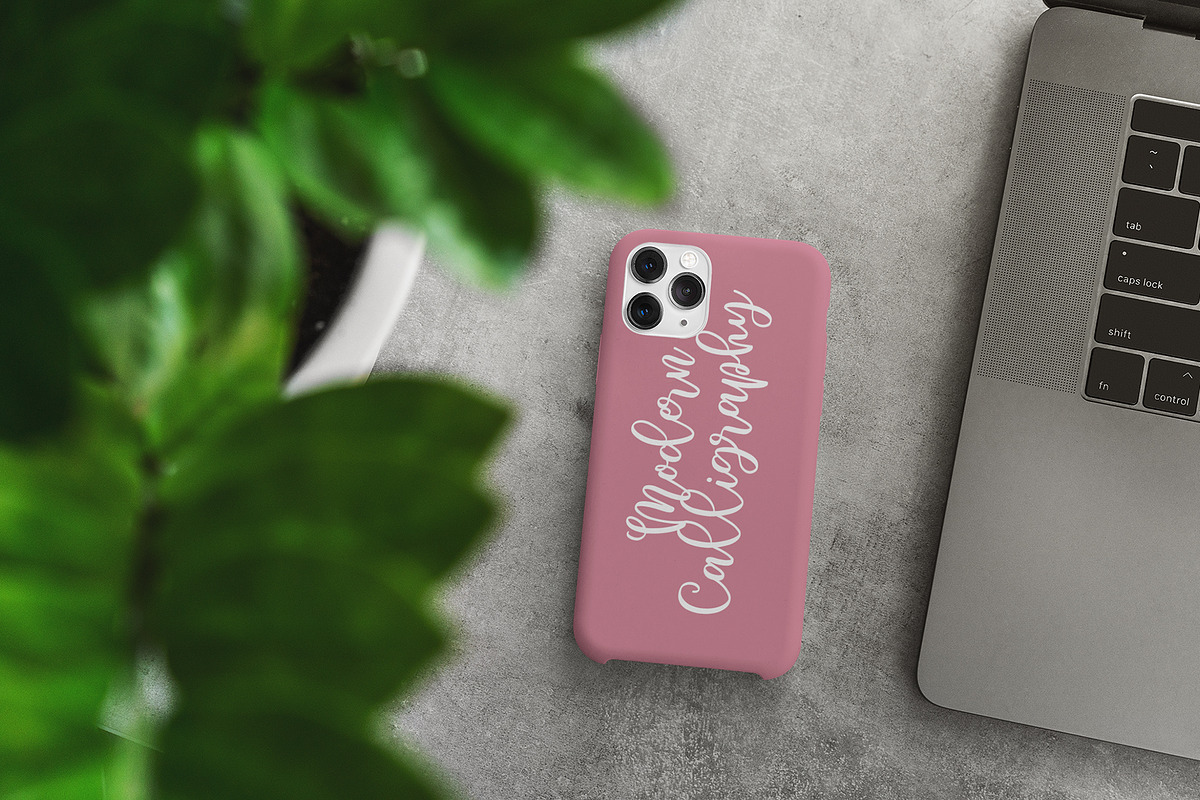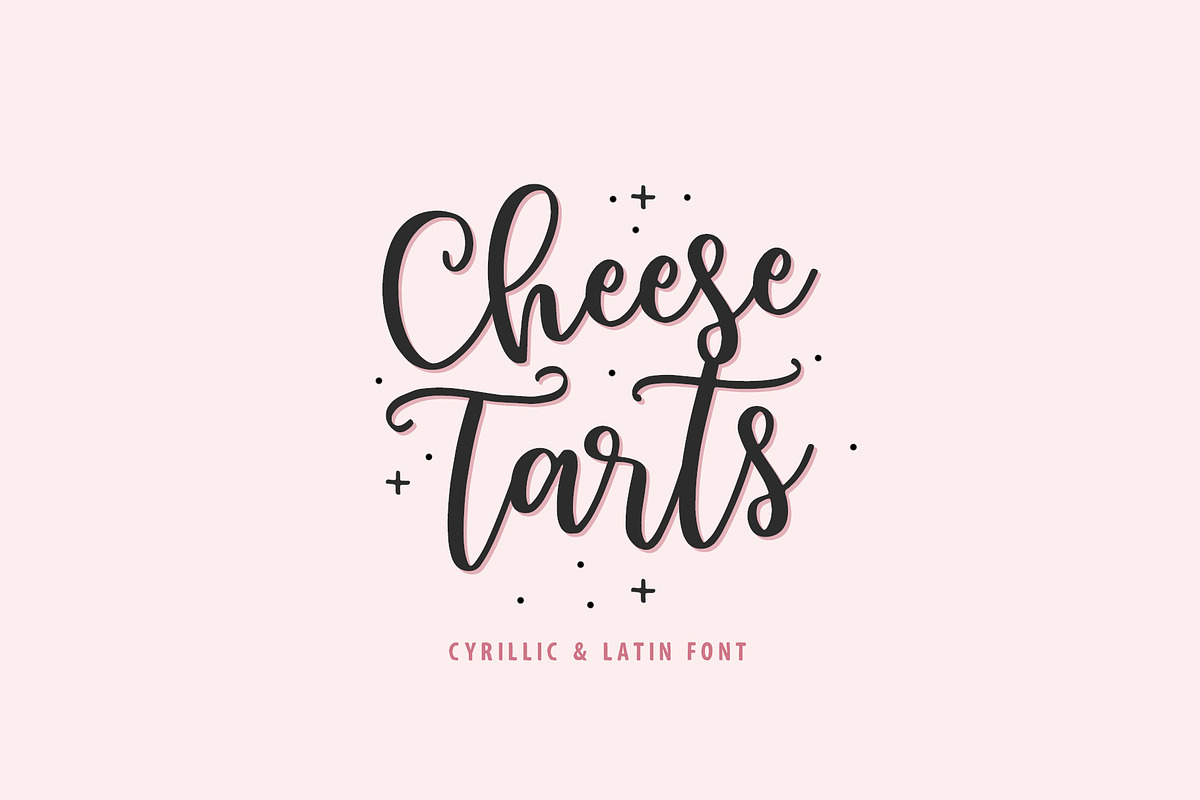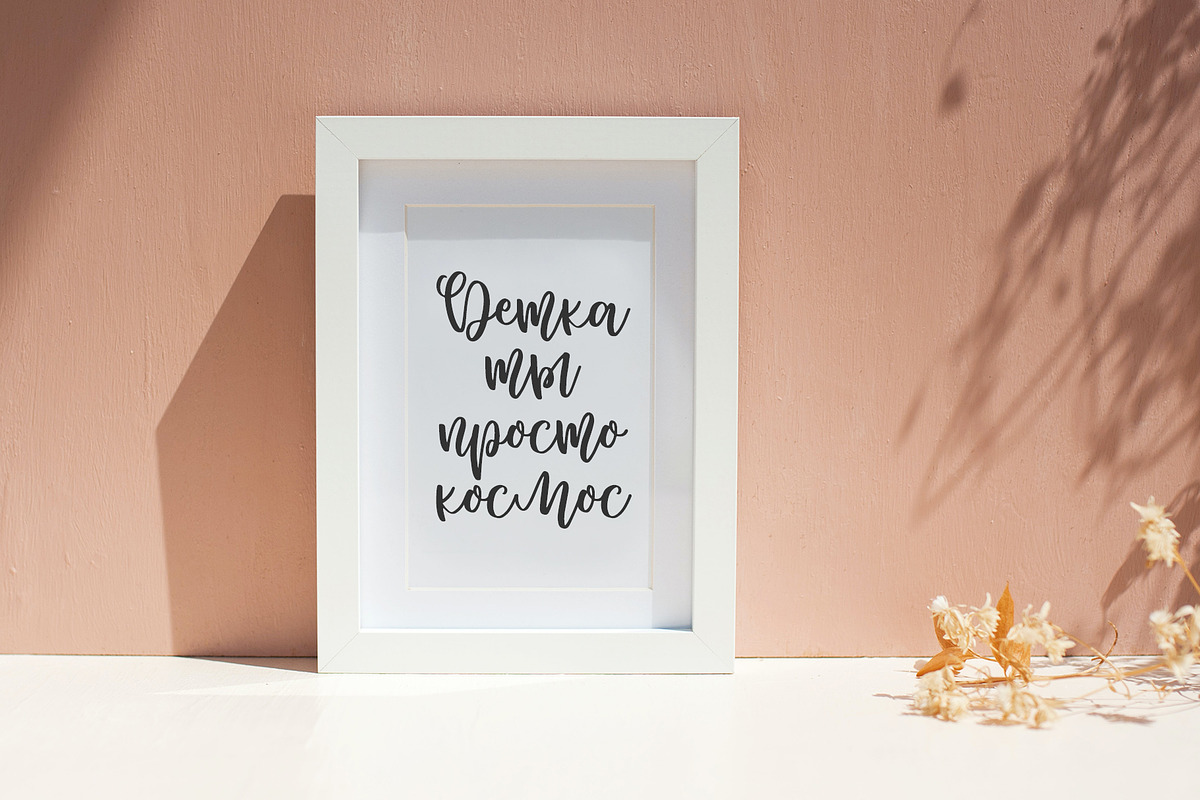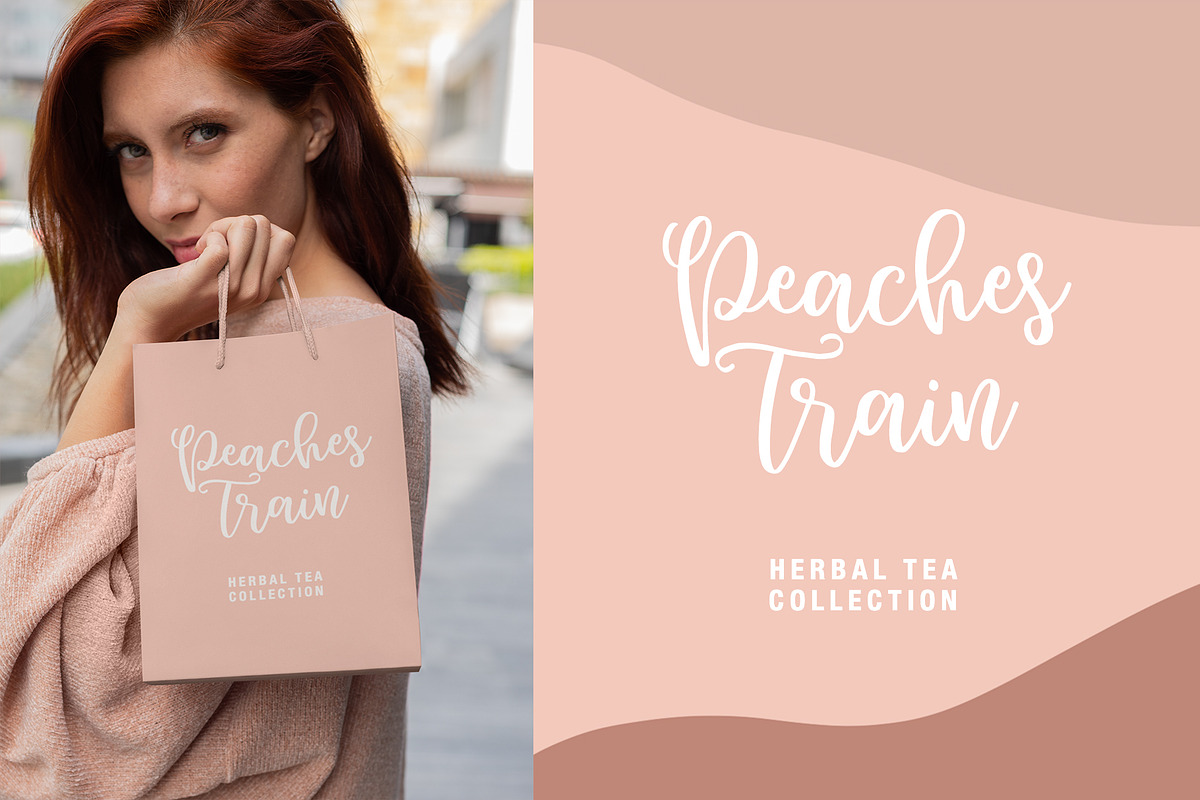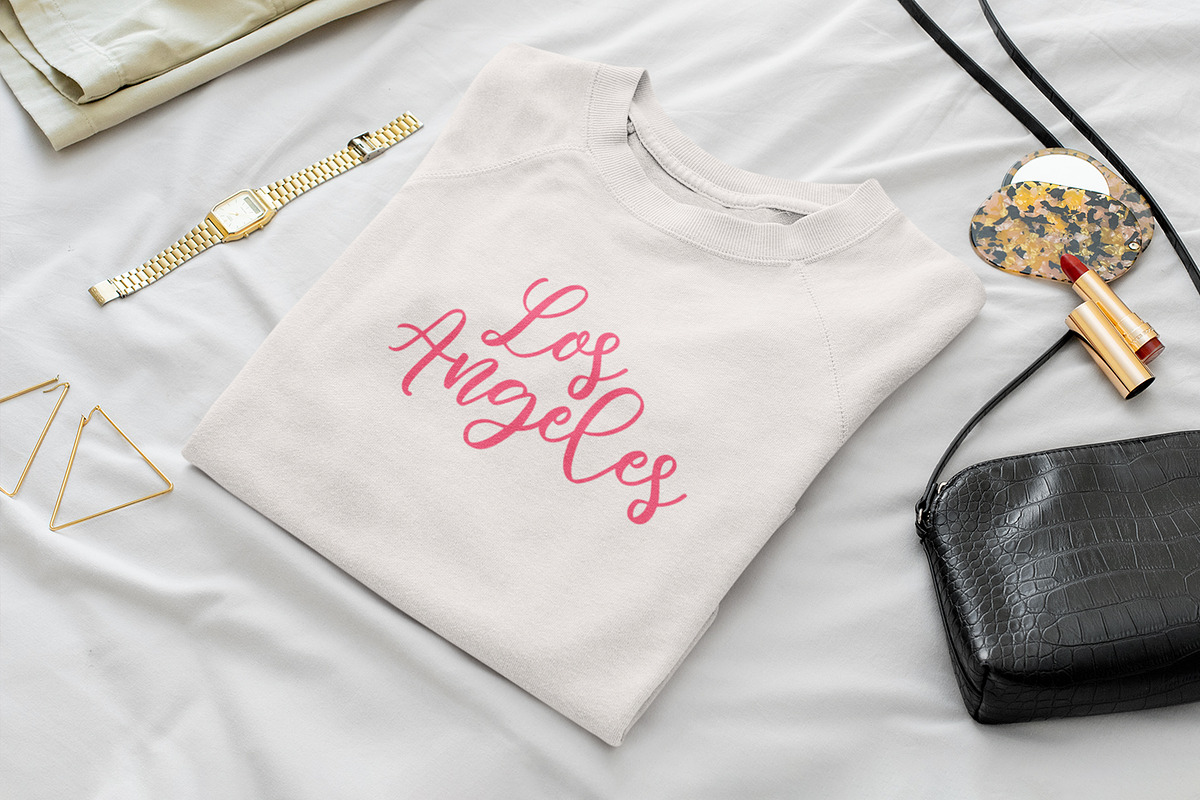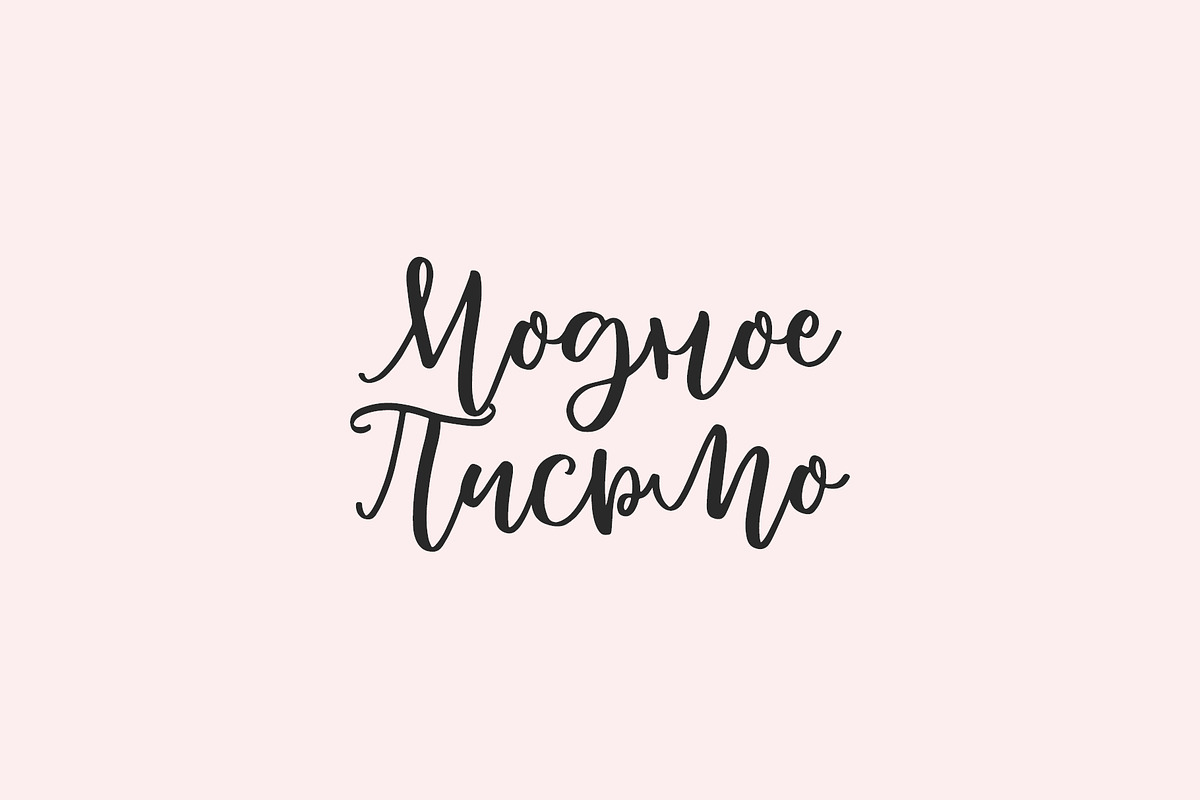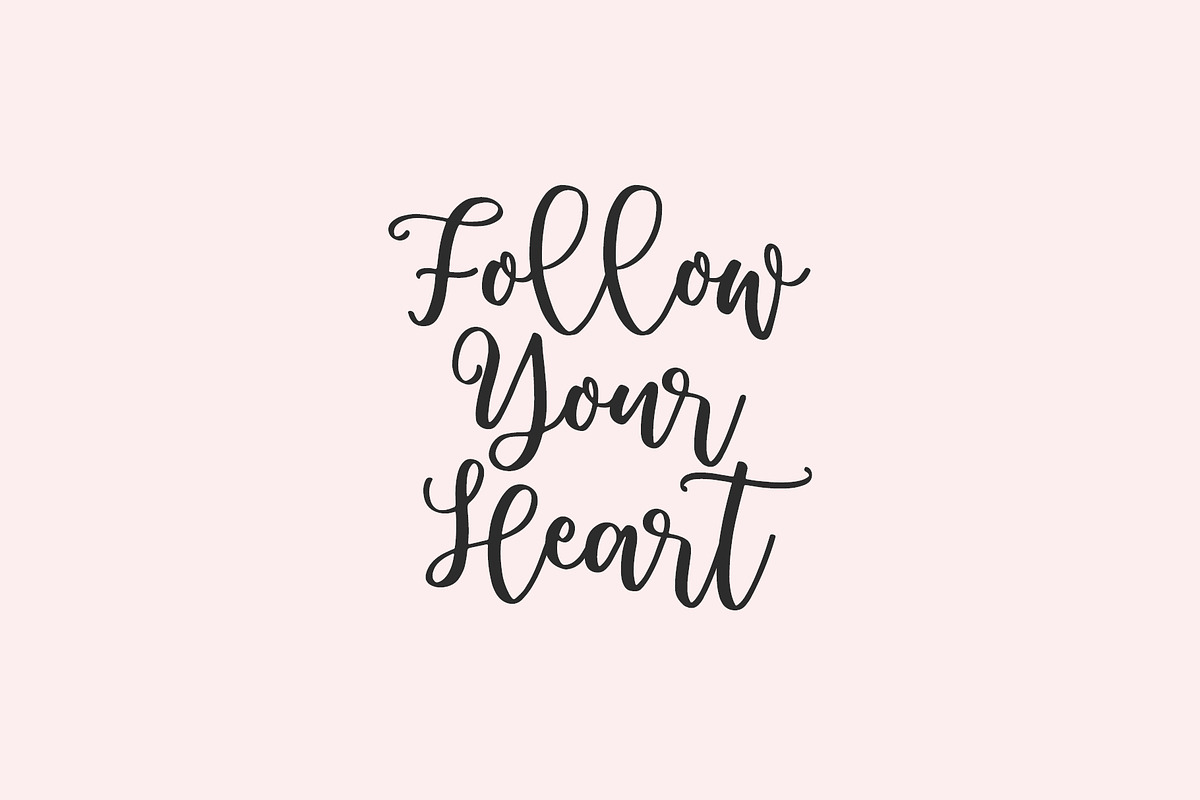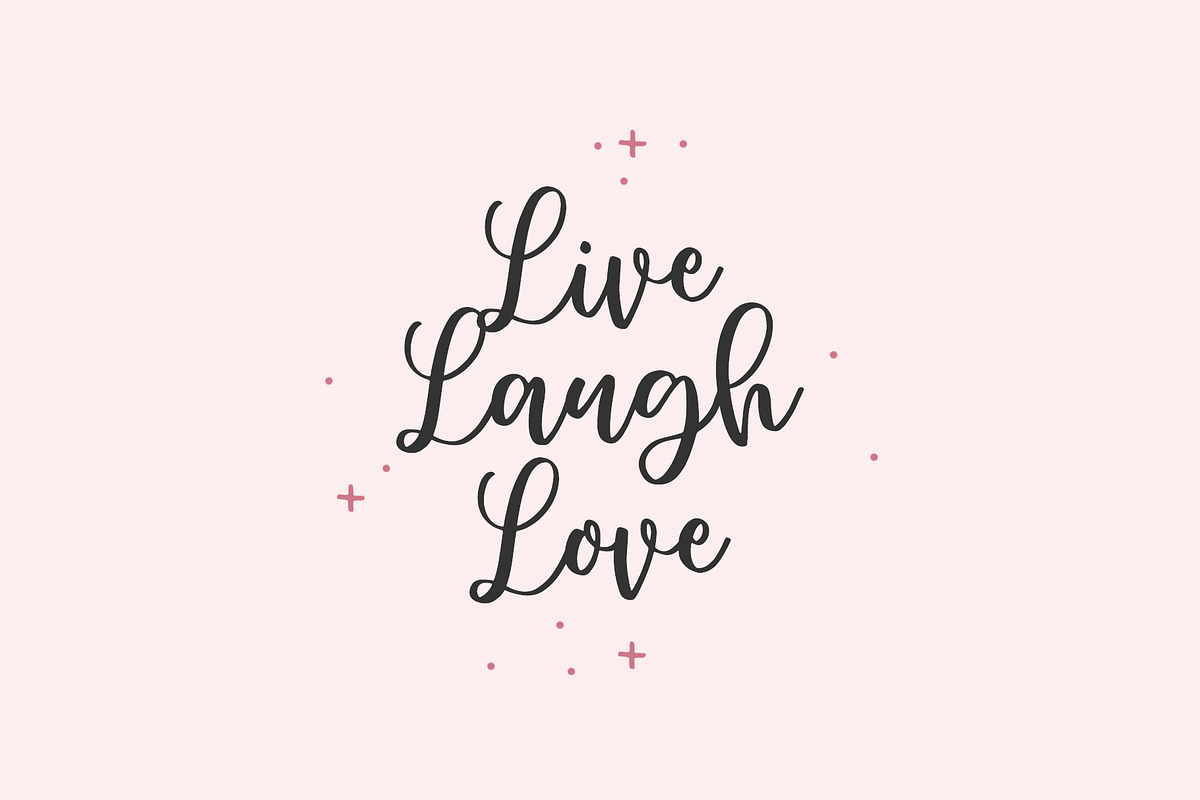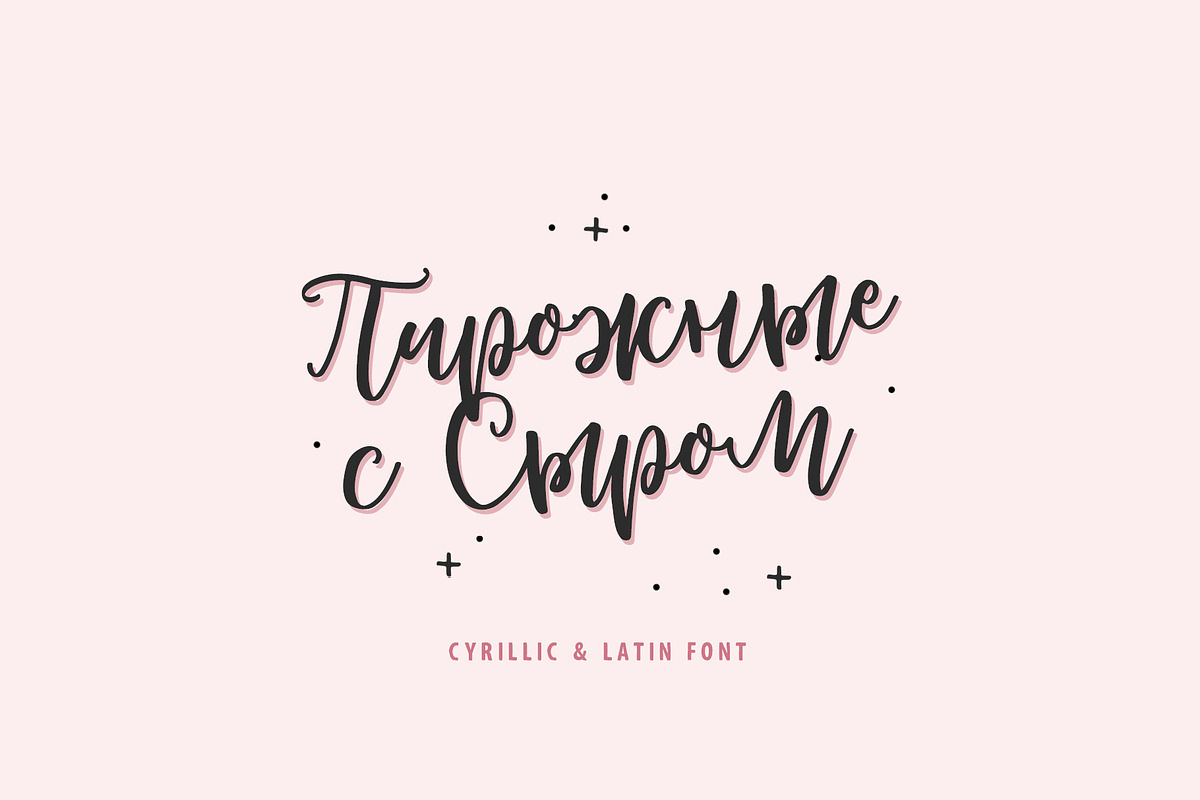
Cheese Tarts cyrillic font
Cheese Tarts will be perfect for wedding lettering, beautiful frame for your home, book covers, greeting cards, logos, marketing, magazines or anything that requires cute handwritten lettering :)
- Cyrillic support / Поддержка русского языка